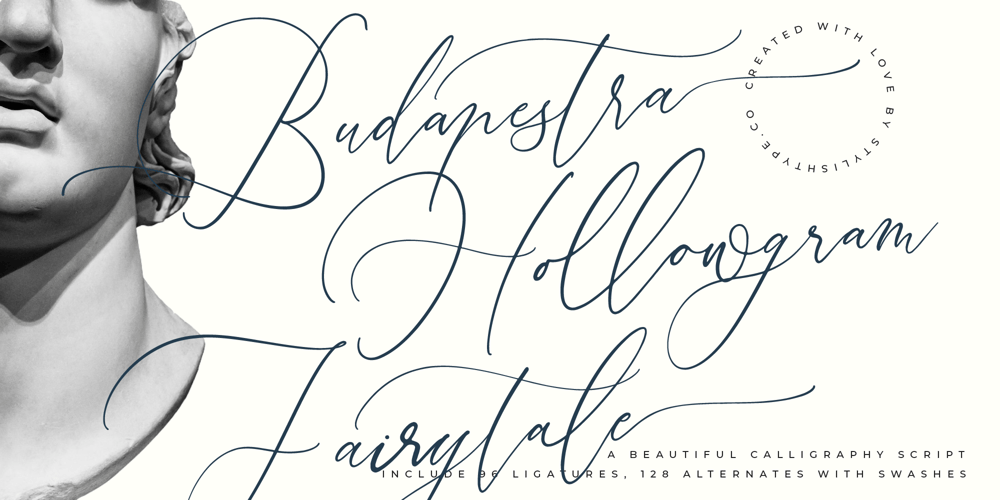
Budapestra Hollowgram Fairytale Font Family was designed by Heru Utama Putra and published by Stylishtype Studio. Budapestra Hollowgram Fairytale contains 1 styles and family package options. Budapestra Hollowgram Fairytale – Beautiful Calligraphy Script , from Stylishtype , Suitable for any projects such as: logos, branding projects, homeware designs, product packaging, mugs, quotes, posters, shopping bags, t-shirts, book covers, name card, invitation cards, greeting cards, label, photography, watermark, special events, and all your other luxury and beautiful projects that need a Luxury Script taste.